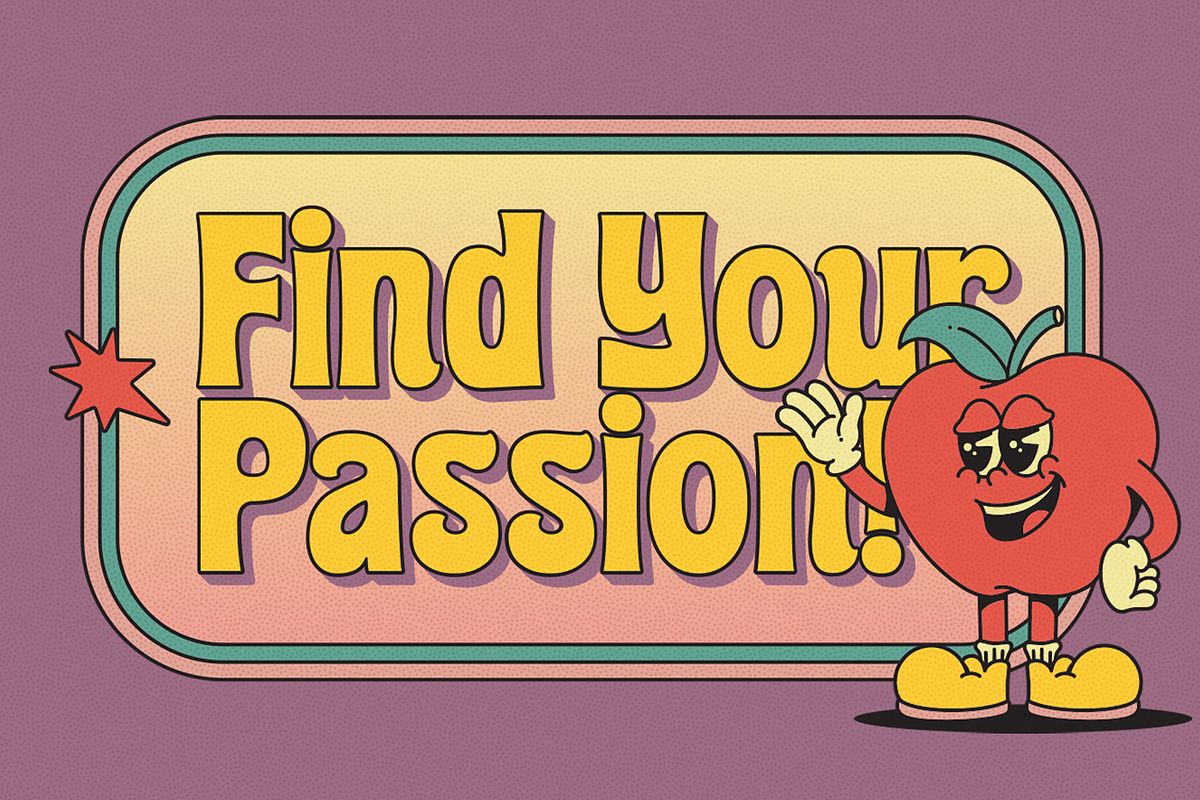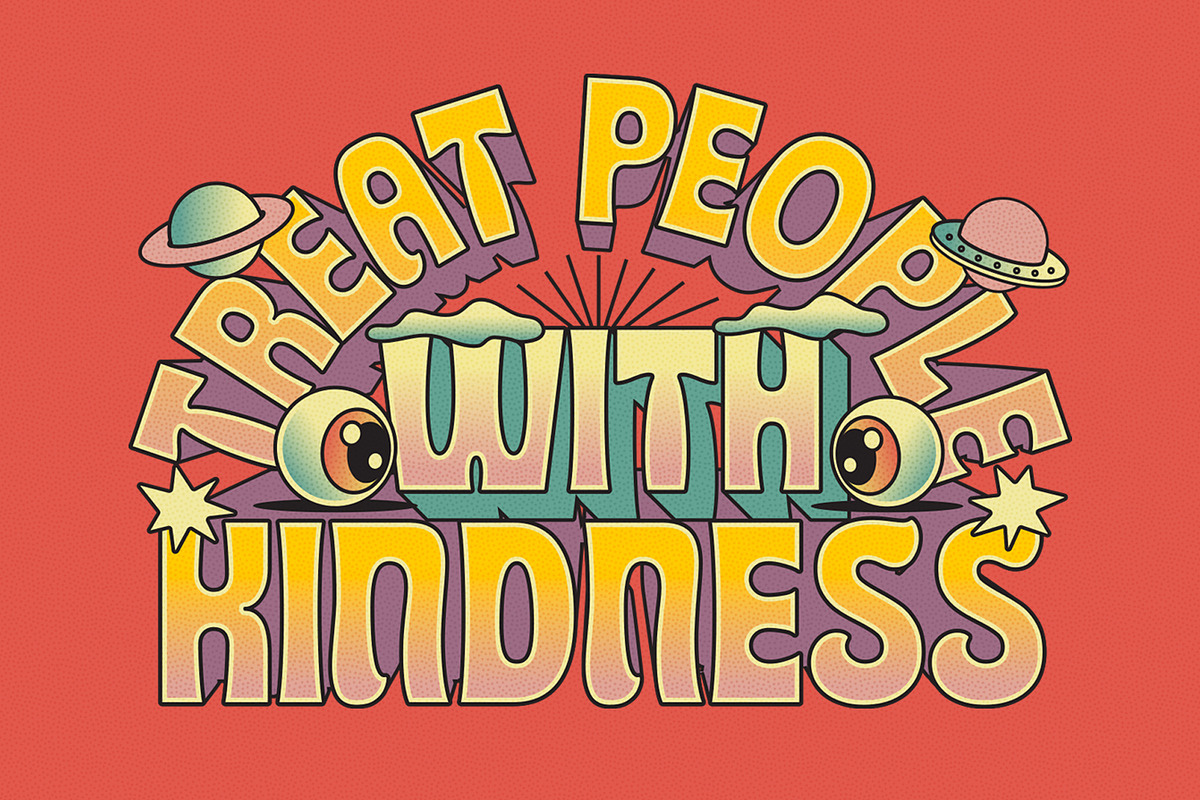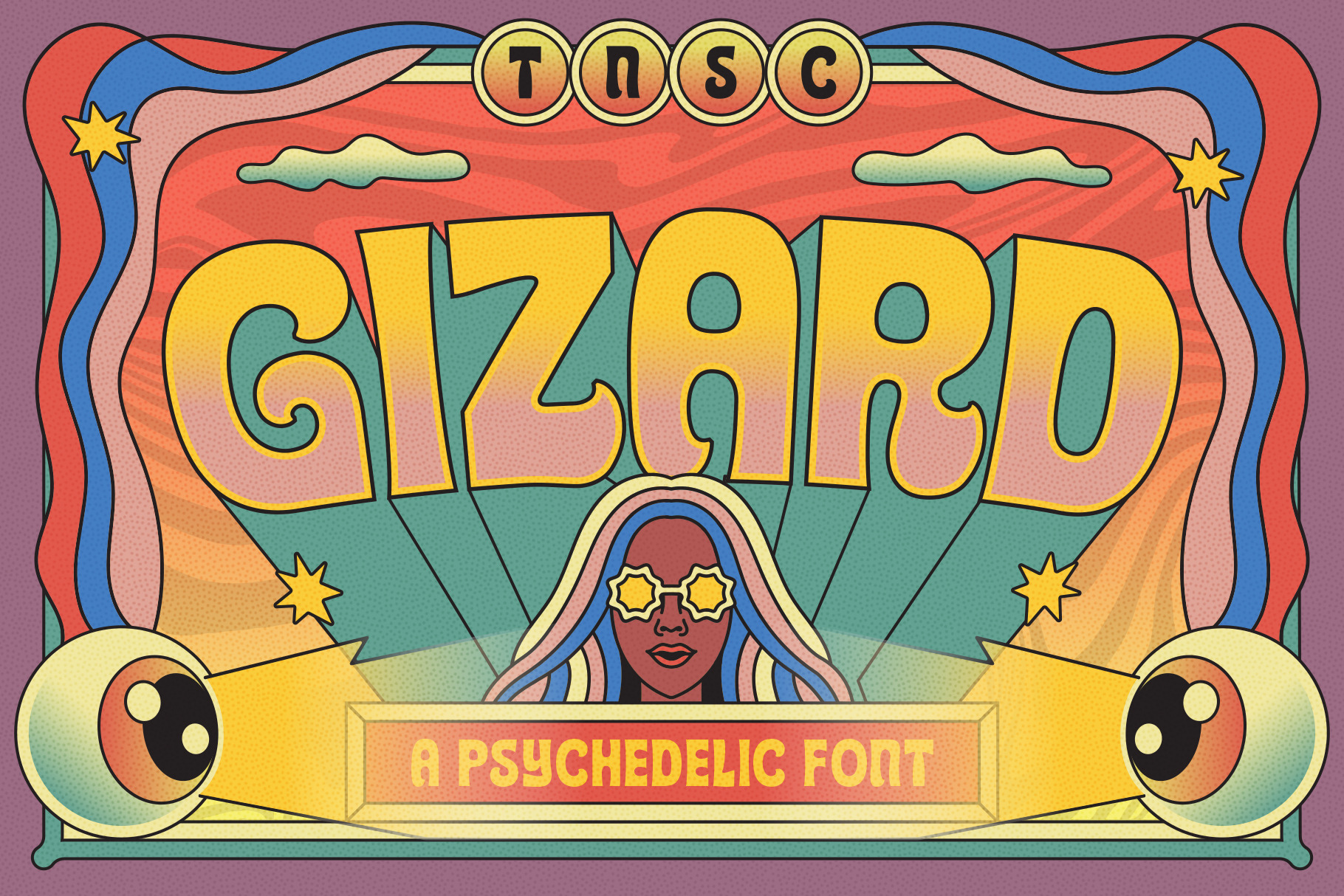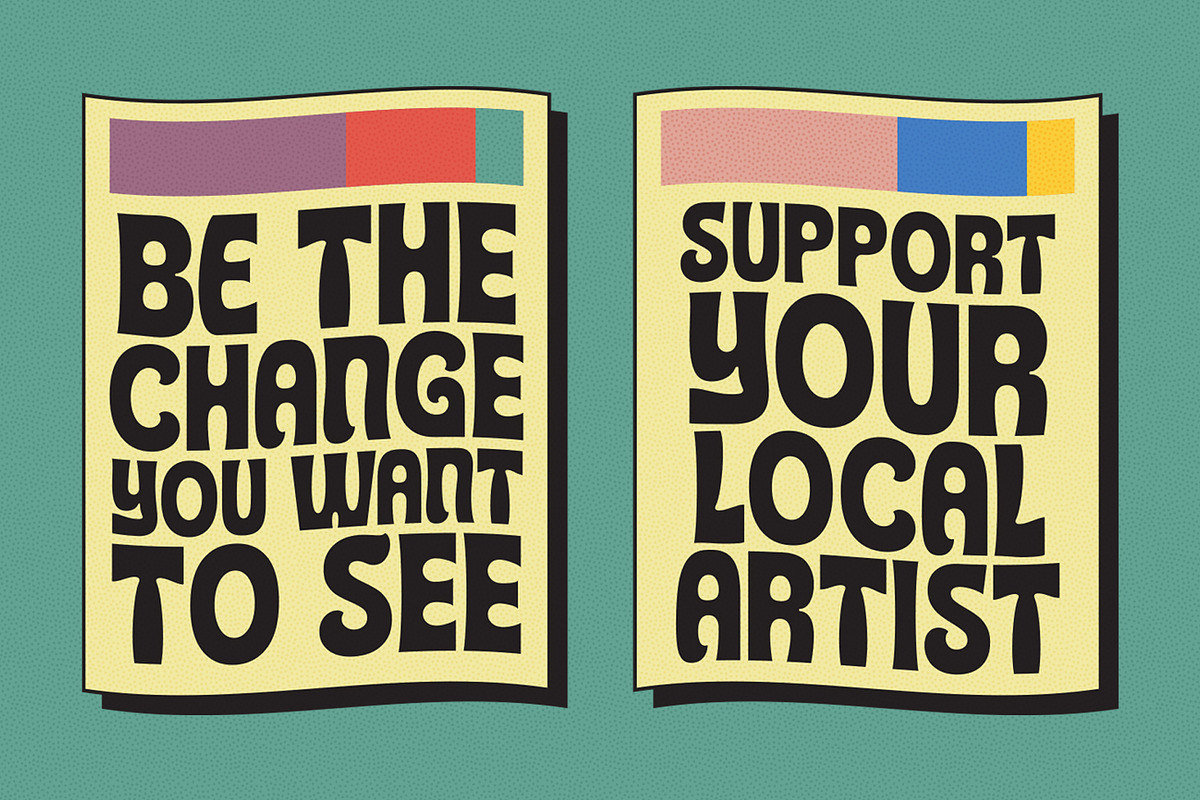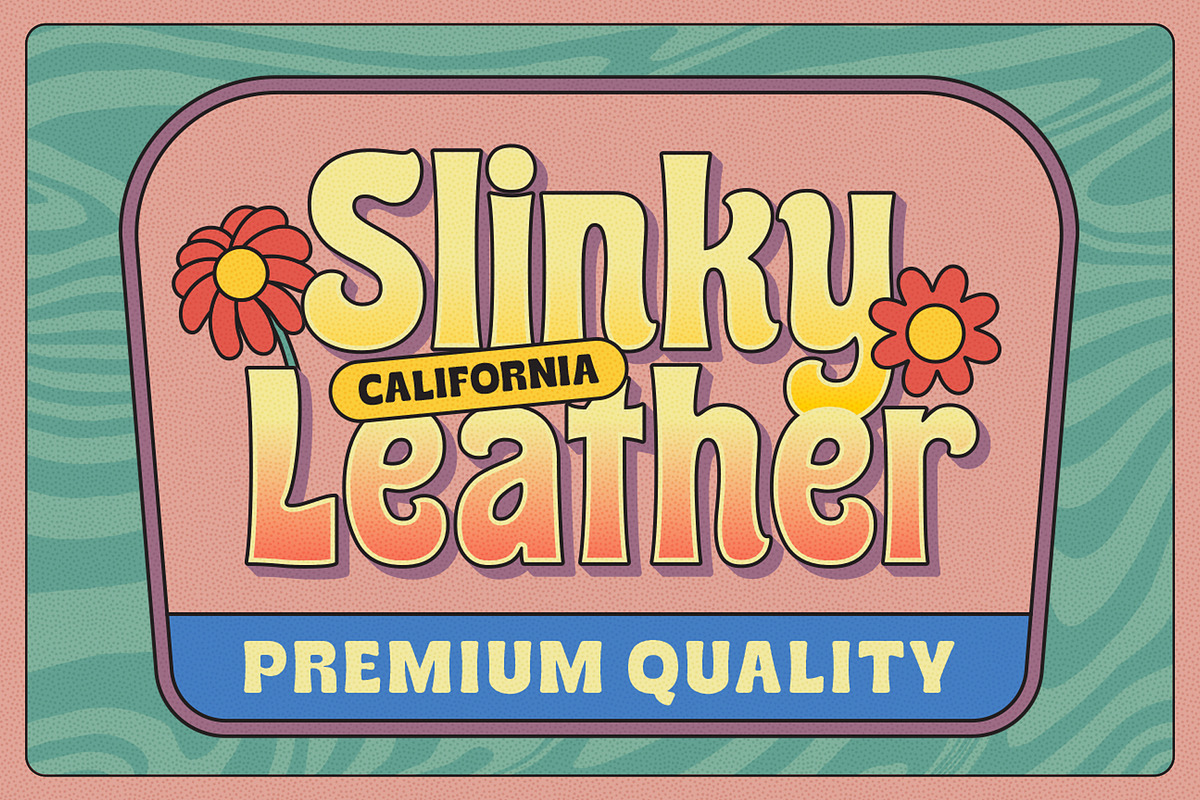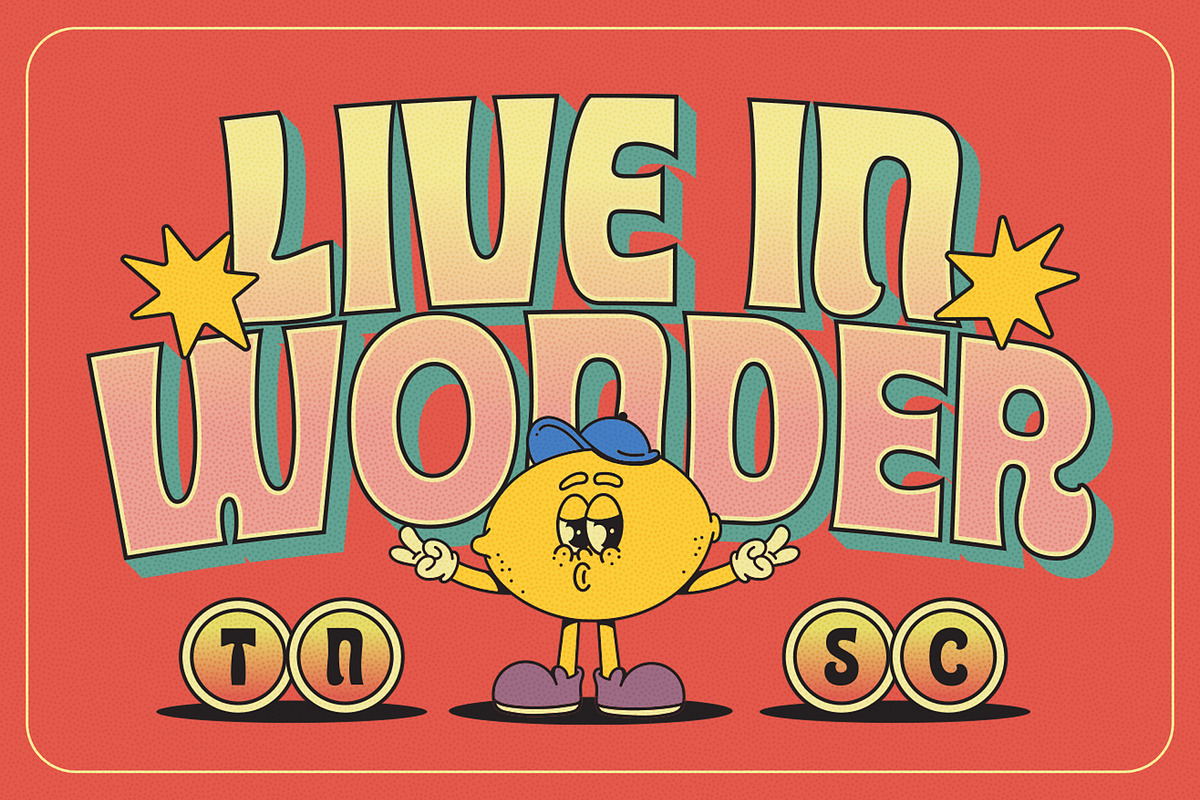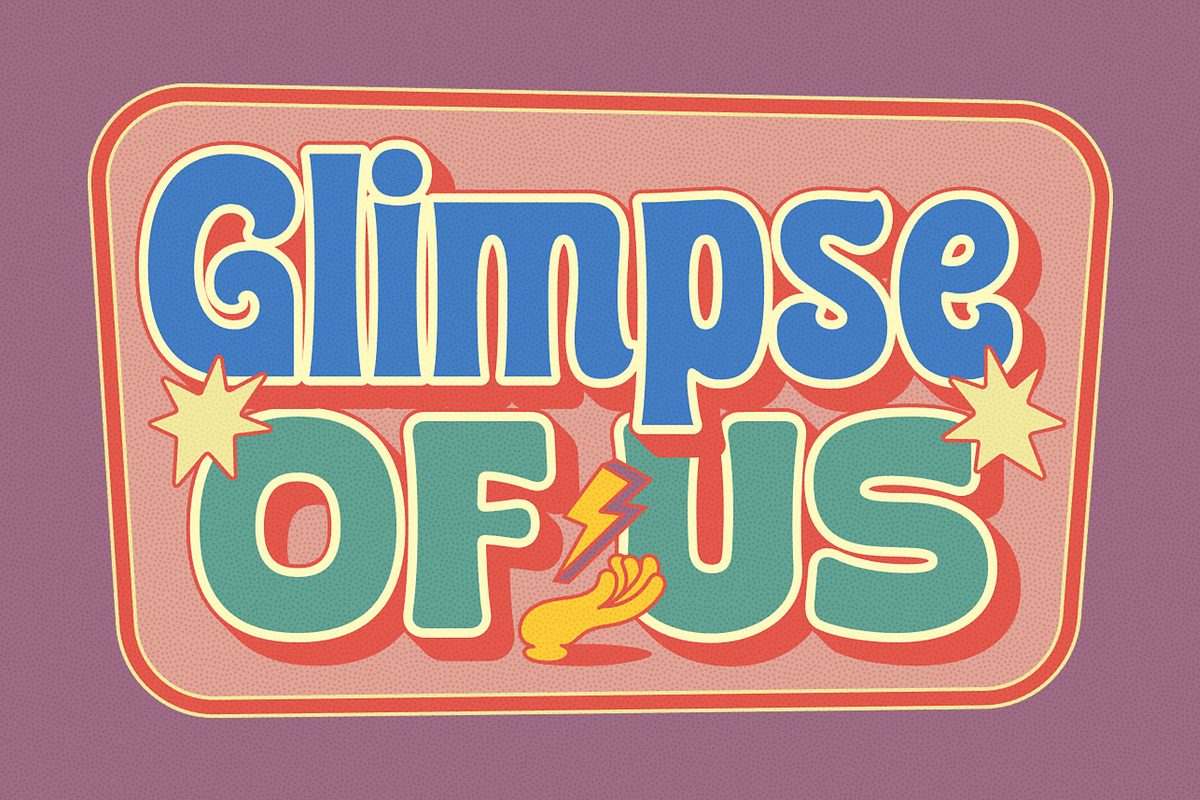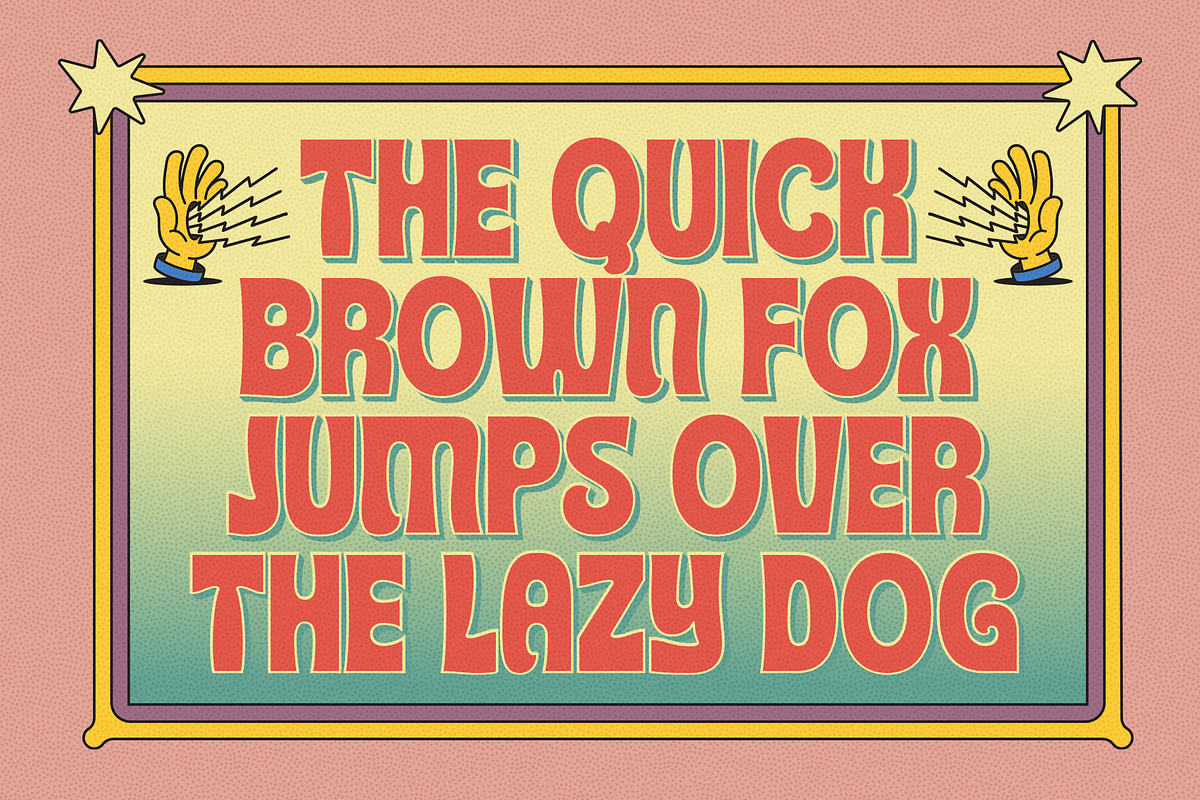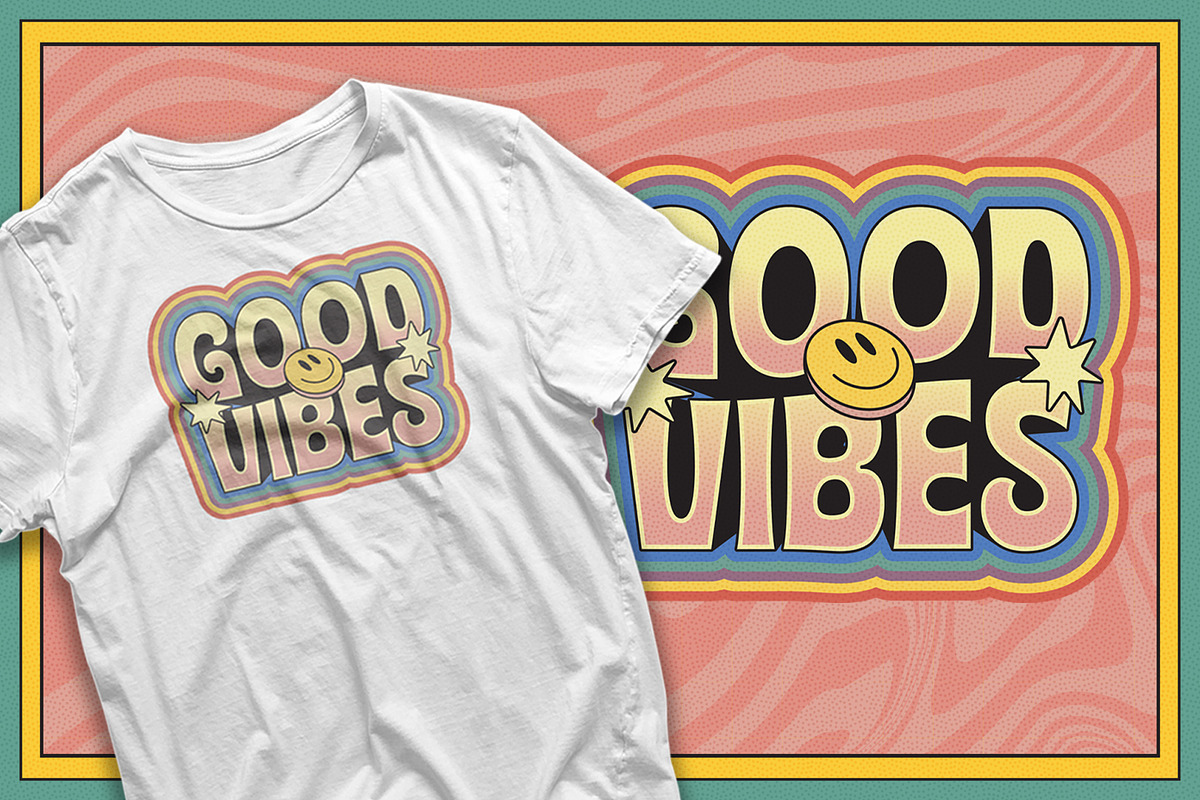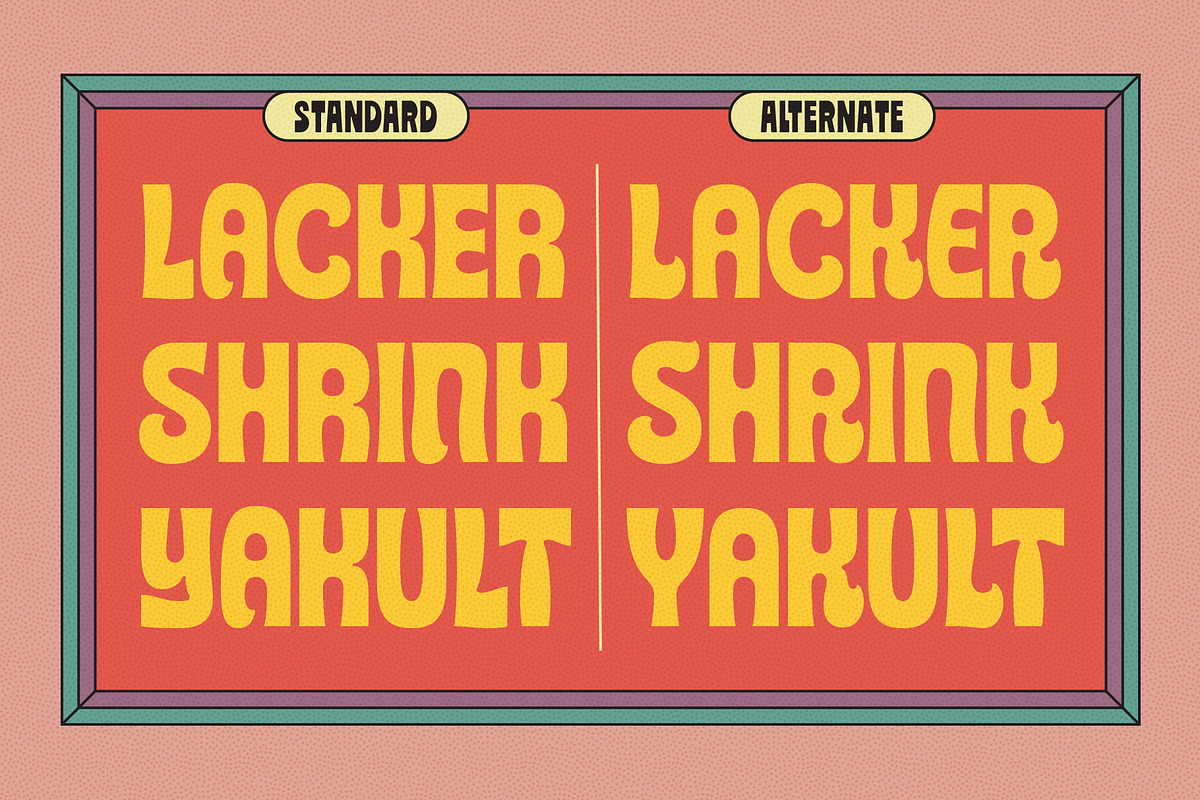
TNSC Gizard - Psychedelic Font
TNSC Gizard is a font that dances on the edge of reality and fantasy. Inspired by the psychedelic art of the ’60s and ’70s, Gizard brings an otherworldly flair to your designs with its swirling, fluid forms and vibrant personality. Whether you're crafting a trippy poster, a mind-bending album cover, or an adventurous brand identity, Gizard's hypnotic curves and cosmic energy will captivate and inspire.